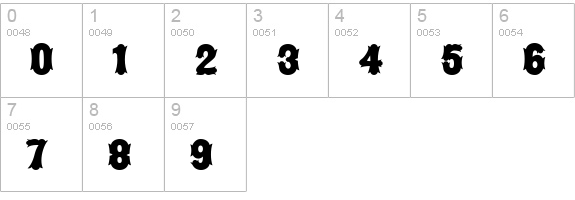
Gullywasher WBW Font Details
Gullywasher WBW font is a stunning display typeface that exudes a sense of boldness and creativity. Its unique and intricate design features intricate lines and curves that give it a modern and edgy look. With a perfect balance of elegance and playfulness, this font is ideal for a wide range of design projects, from branding to posters to social media graphics. The best part is that Gullywasher WBW font is available for free download at FontsMarket.com. Whether you're a designer looking to add a touch of personality to your projects or a business owner wanting to make a statement with your branding, this font is sure to make a lasting impression. Download Gullywasher WBW font today and unleash your creativity with this versatile and eye-catching typeface.